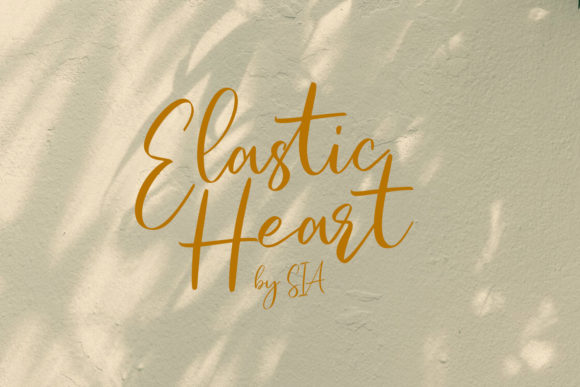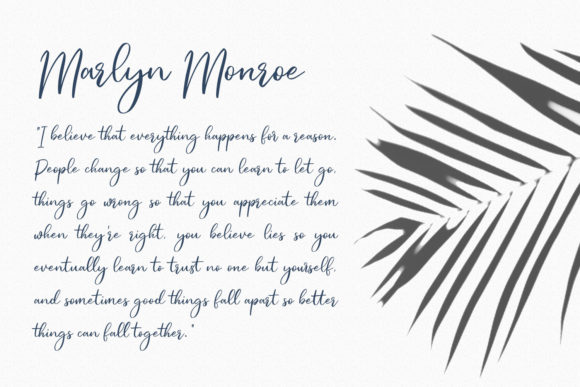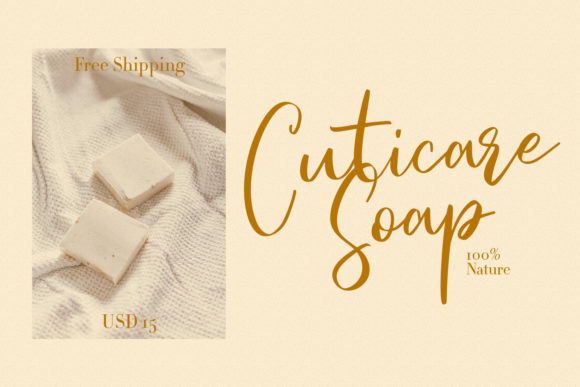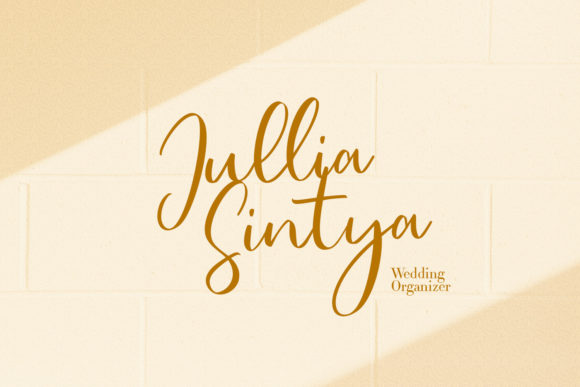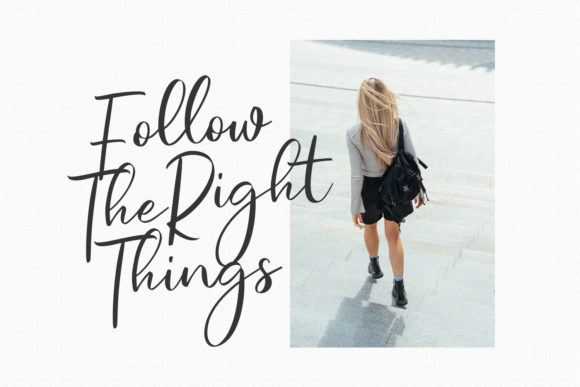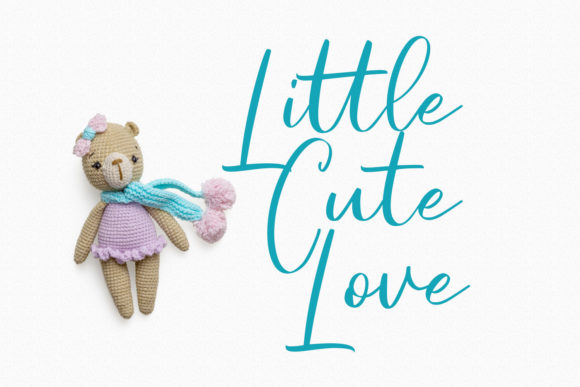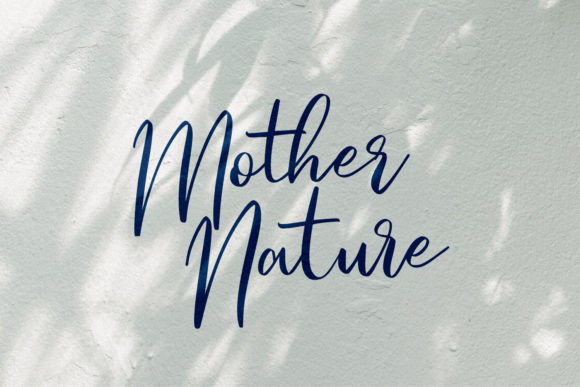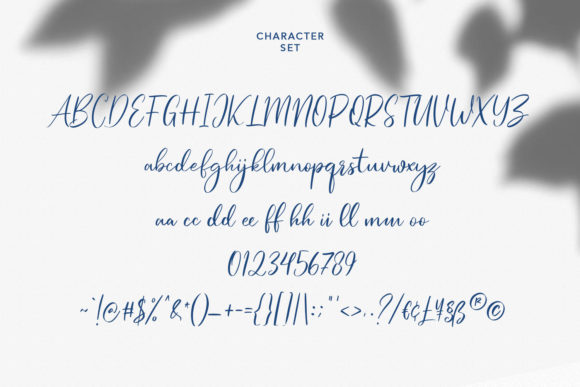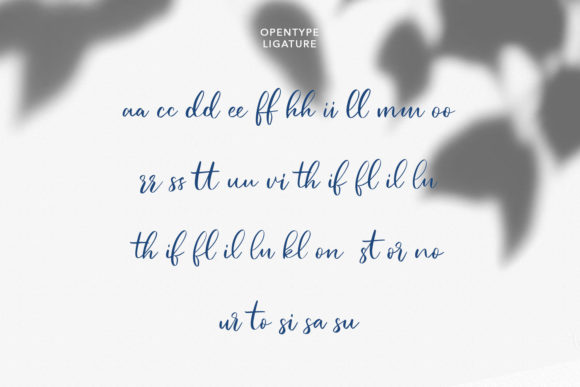
Jullysinty Font
About Jullysinty Font
Introducing Jullysinty, a lovely and timeless handwritten font that will add a touch of elegance and charm to your designs. With its delicate strokes and graceful curves, this font is the perfect choice for creating eye-catching logos, branding materials, and captivating quotes.
Jullysinty stands out with its unique and beautiful letterforms, each crafted with meticulous attention to detail. Every letter has its own distinctive touch, adding character and personality to your designs. Whether you’re working on a logo, a brand identity, or a quote graphic, Jullysinty will bring your design to life.
The timeless quality of Jullysinty makes it suitable for a wide range of applications. Its versatility allows it to shine in various design projects, including social media graphics, packaging, stationery, and more. It effortlessly captures attention and leaves a lasting impression on your audience.
The fluid and smooth nature of Jullysinty’s handwritten style creates a sense of elegance and sophistication. The letters flow seamlessly, creating a harmonious rhythm that is visually pleasing and engaging. This font exudes a sense of warmth and friendliness, making it approachable and inviting.
Jullysinty is designed to be user-friendly and accessible to all. It is compatible with most design software, and its OpenType features allow you to access alternate characters and ligatures with ease. This gives you the freedom to customize and personalize your designs, adding a unique flair to each project.
In conclusion, Jullysinty is a lovely and timeless handwritten font that adds a touch of elegance and beauty to your designs. Its unique letterforms and versatility make it an excellent choice for eye-catching logos, branding materials, and quotes. Let Jullysinty breathe life into your designs and create captivating visuals that leave a lasting impression.